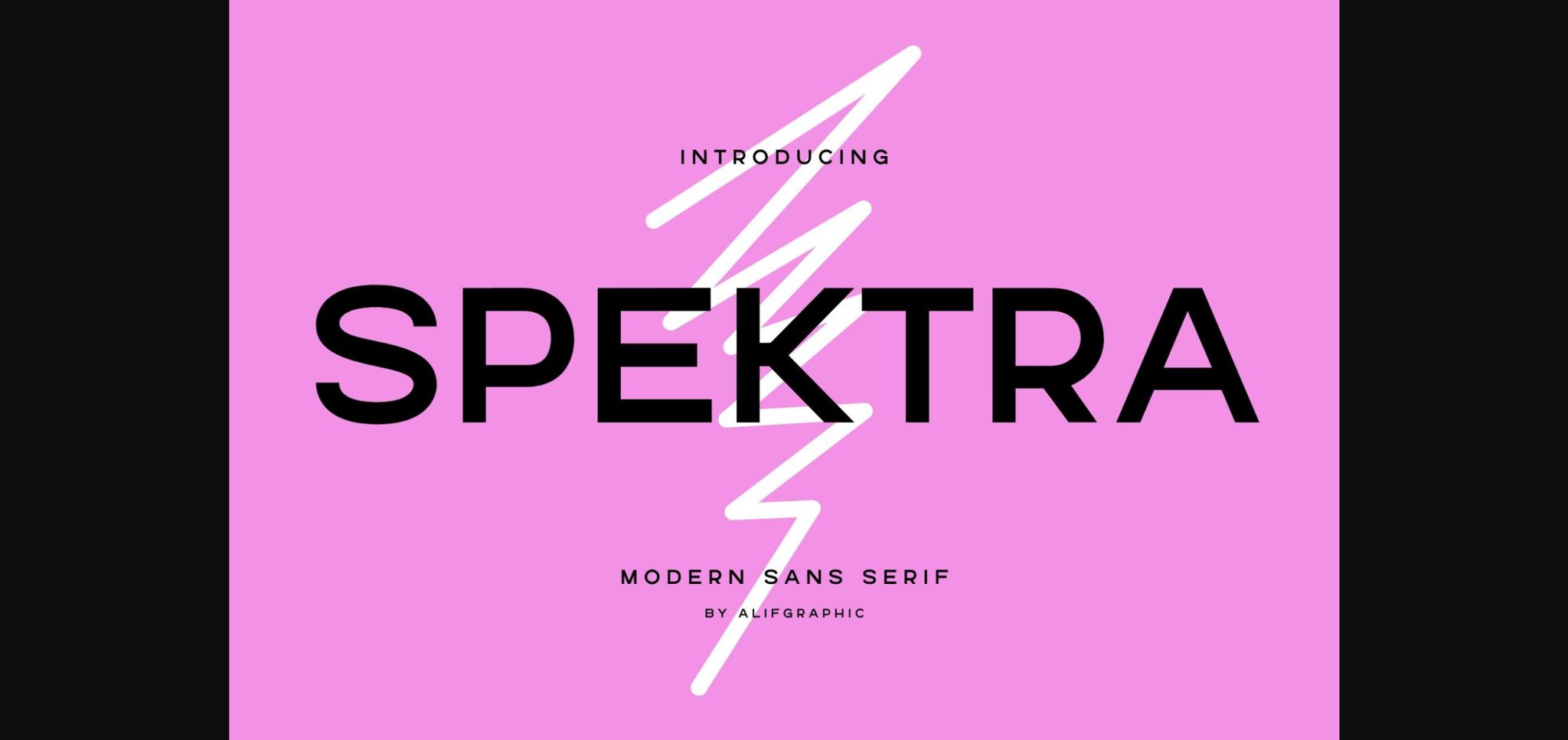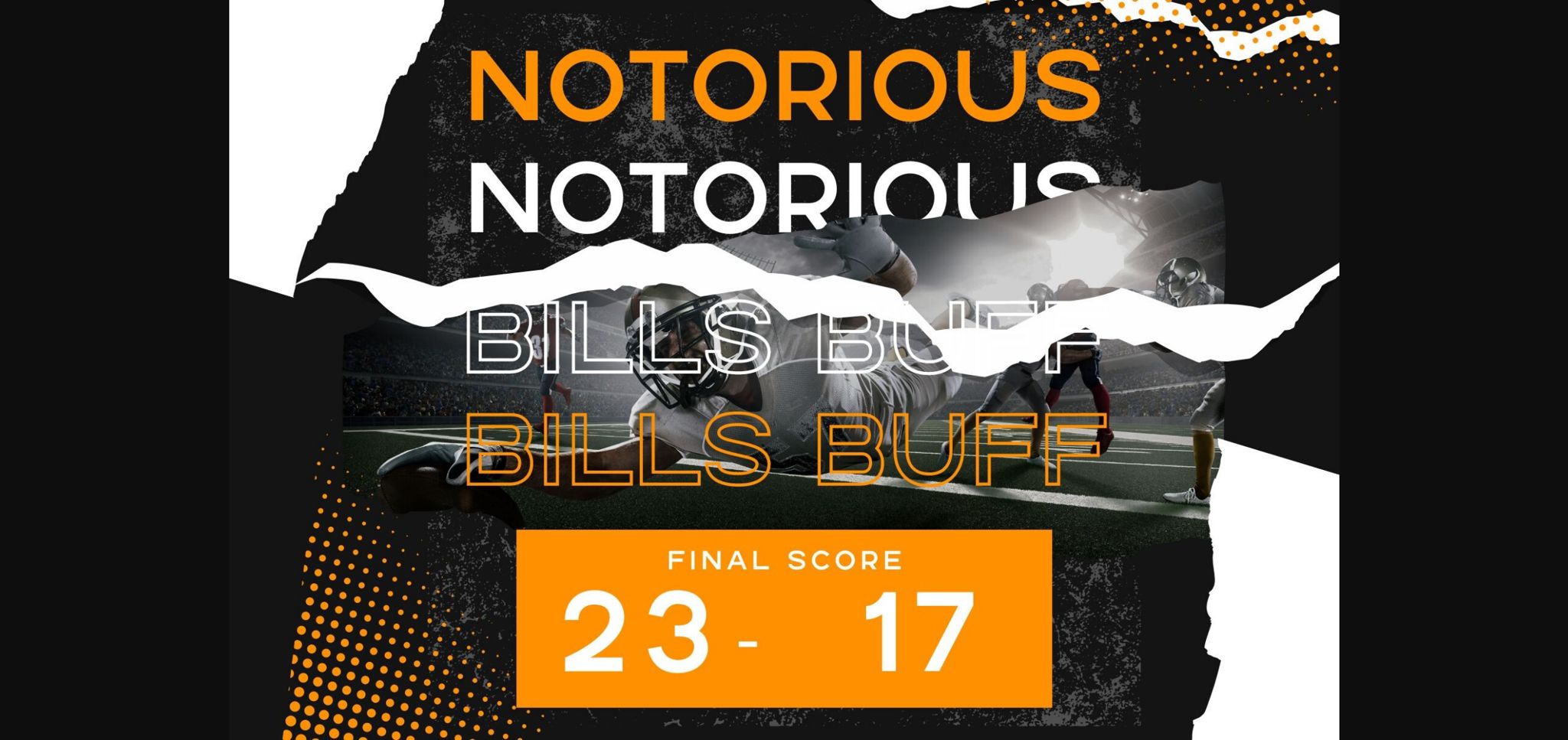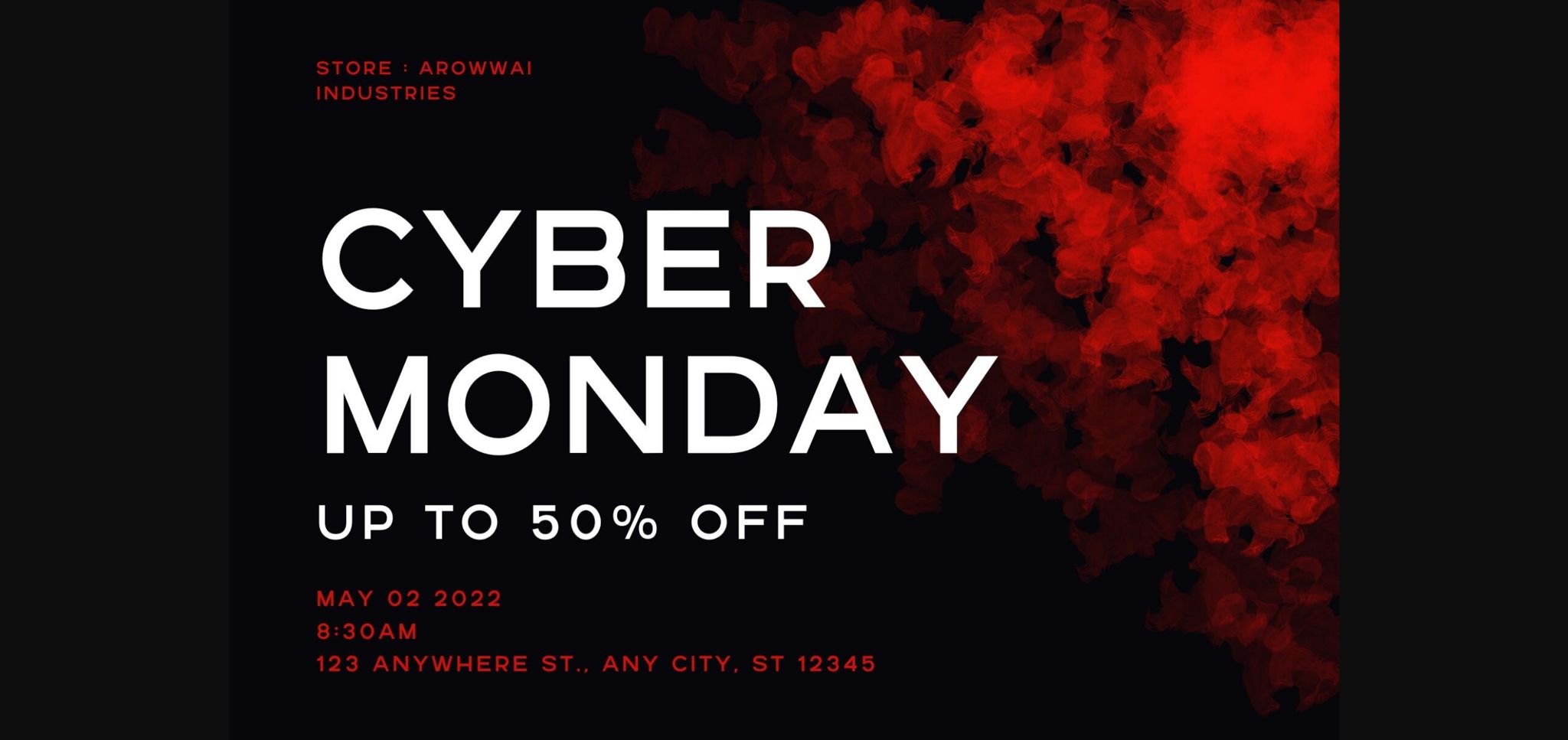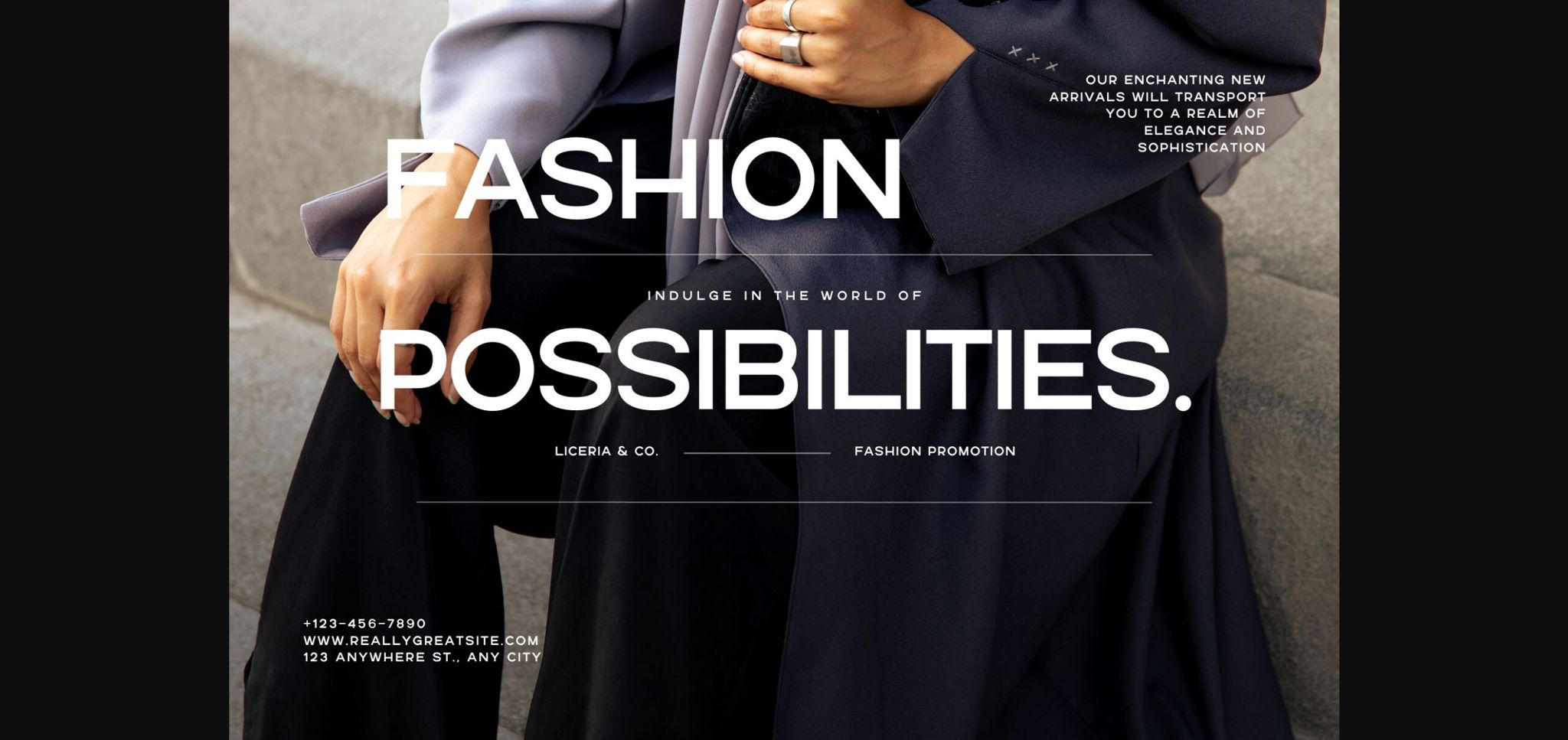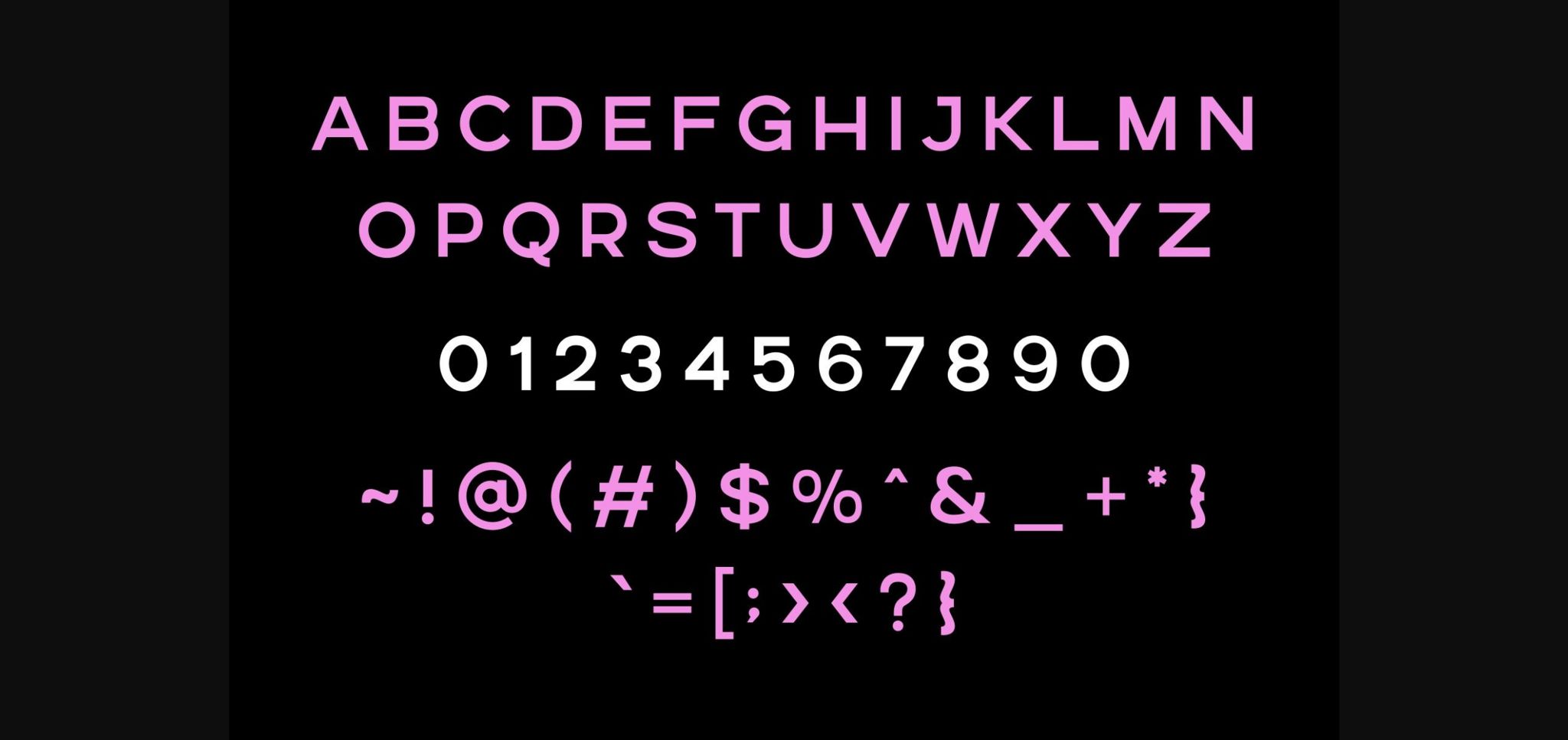
Spektra Font
About Spektra Font
Introducing “Spektra” – a modern bold sans serif font that embodies sleek simplicity with a bold edge. With clean lines and a contemporary aesthetic, Spektra is perfect for making a strong, confident statement in your design projects. Whether you’re creating impactful headlines, branding materials, or any modern design, Spektra’s bold simplicity ensures clarity and visual appeal. Elevate your typography with the straightforward and sophisticated style of Spektra.